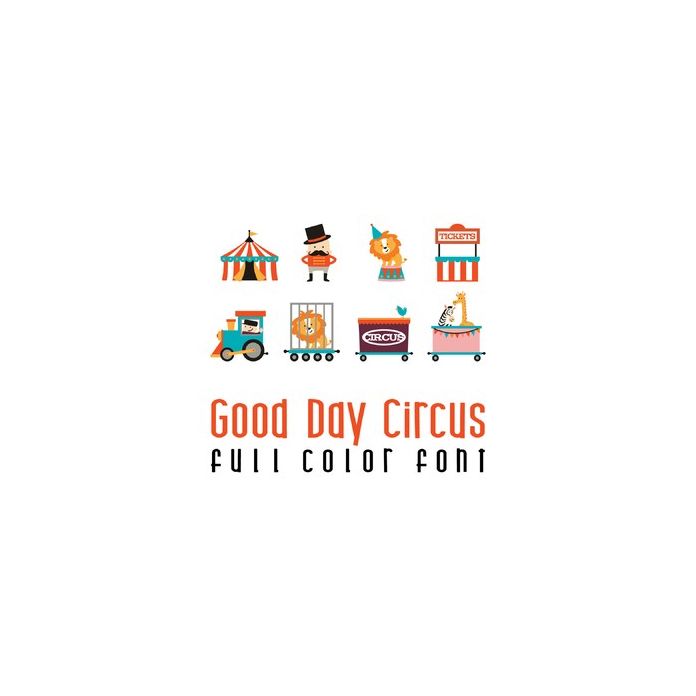
This adorable full color doodlebat font features and adorable circus. Perfect for cards, crafts, gifts, decor, scrap book pages, planner stickers and more!